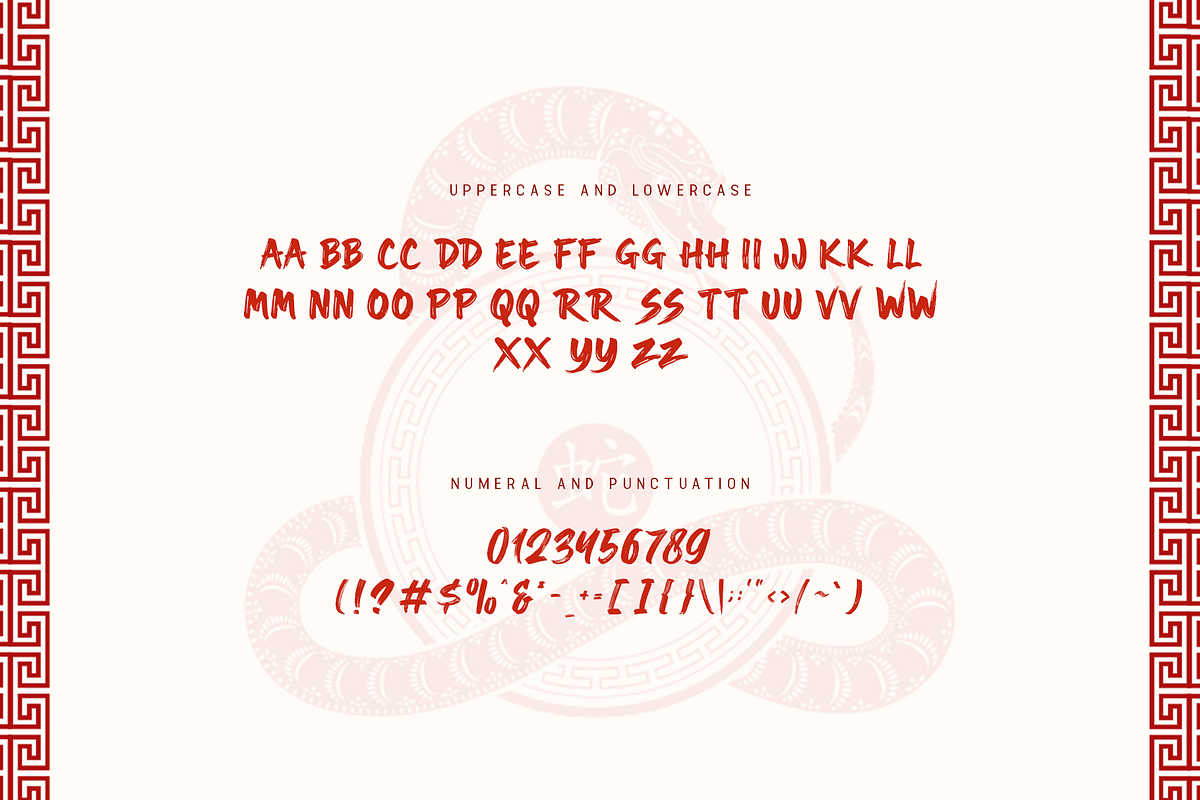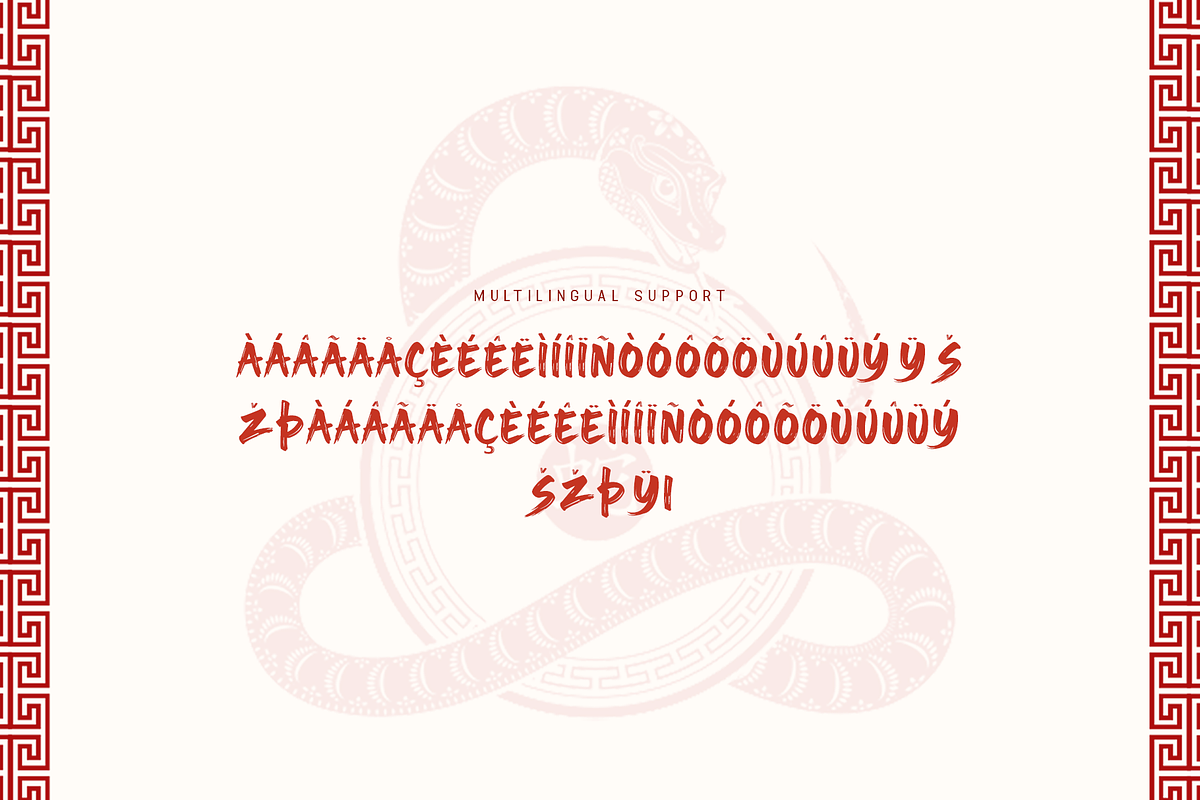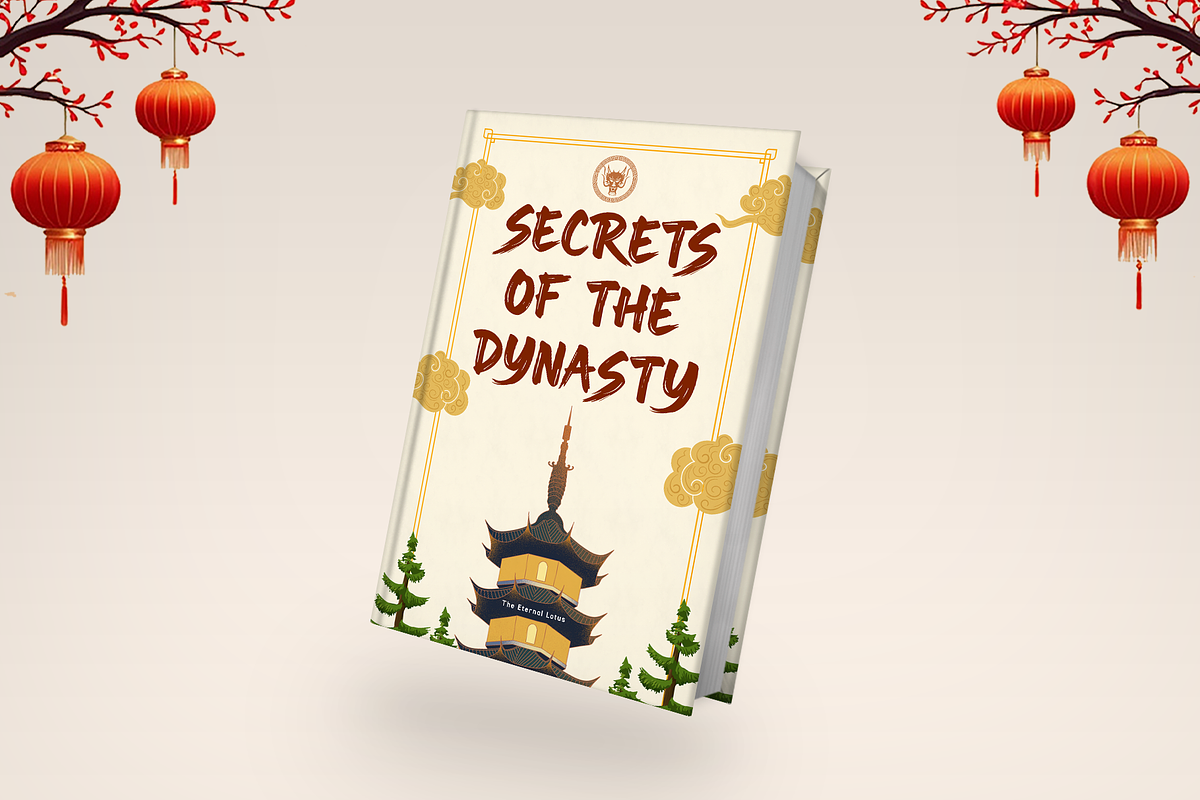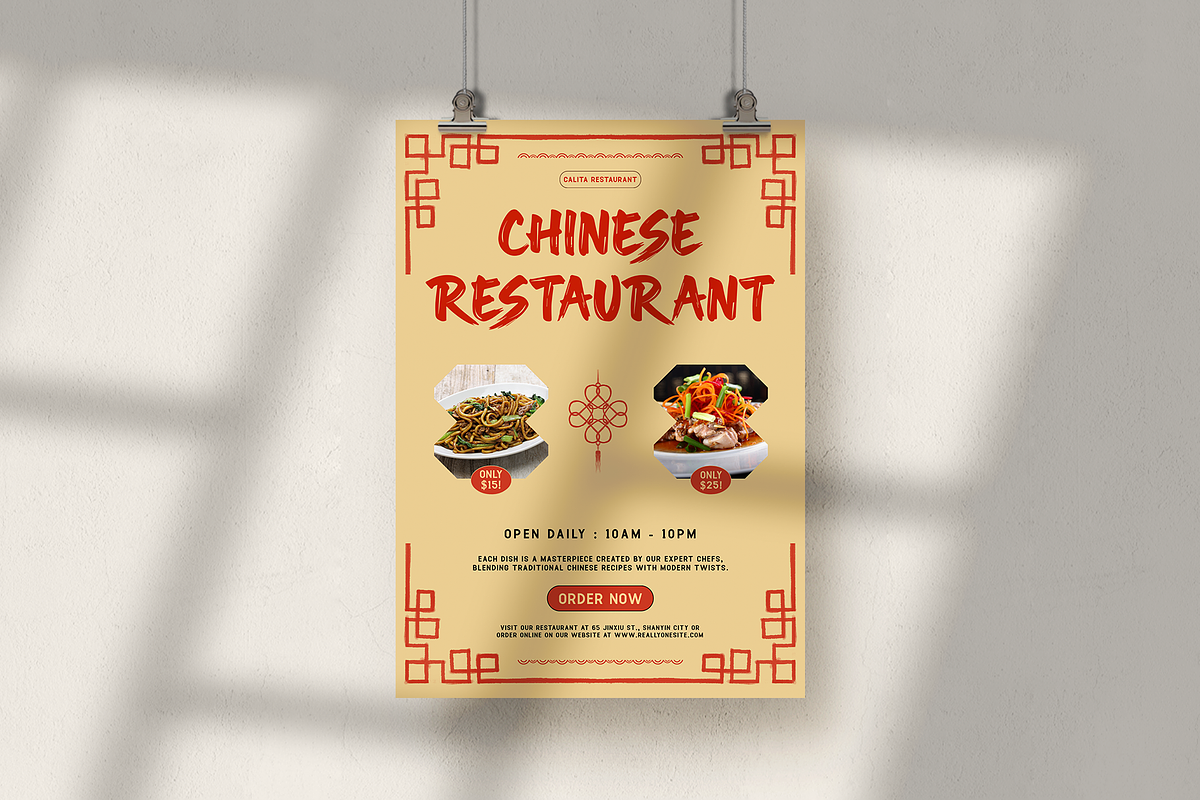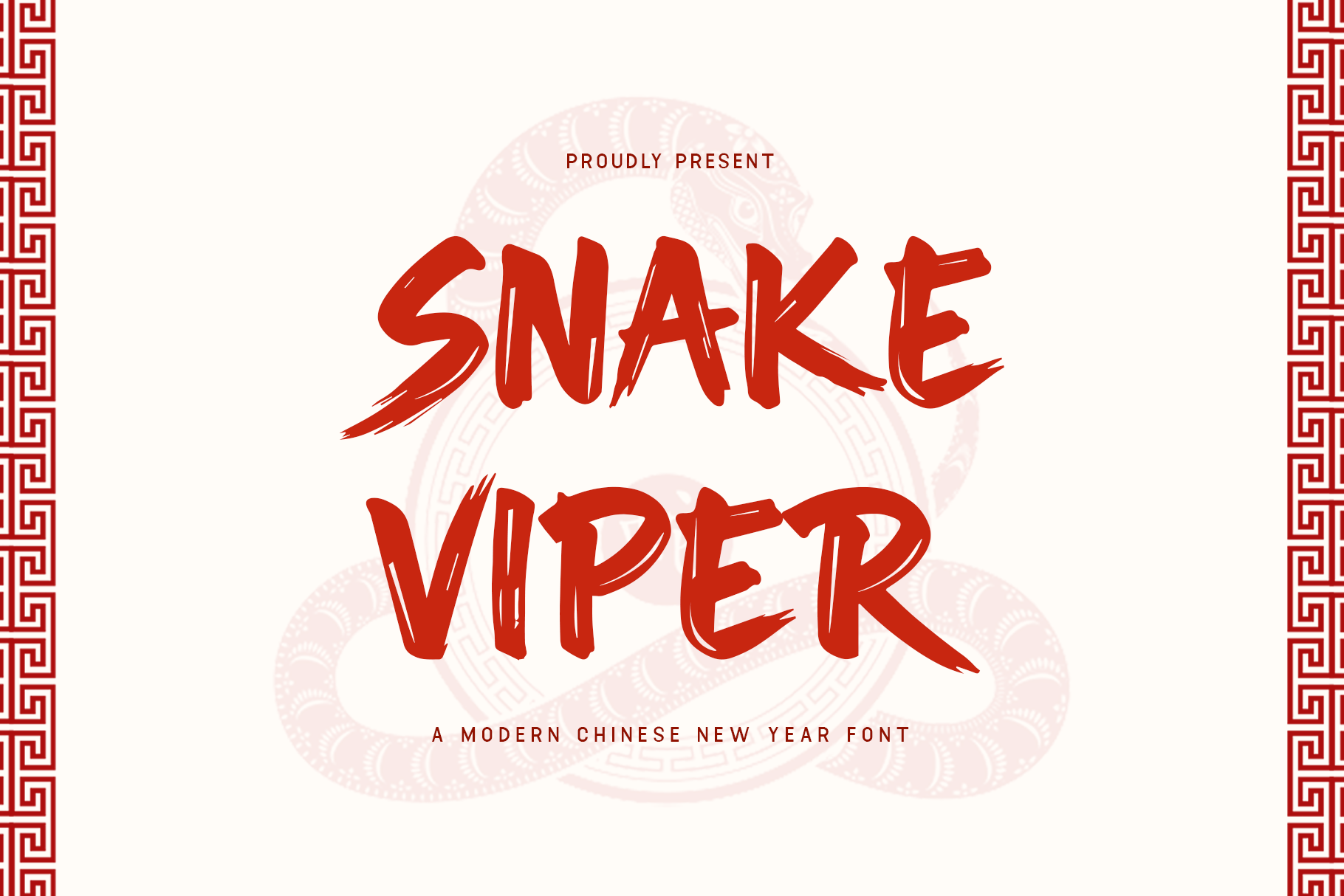
Snake Viper - A Modern Chinese Font
Snake Viper - A Modern Chinese New Year Font
Introducing Snake Viper, a modern font that embodies the strength and allure of the viper, symbolizing wisdom, power, and transformation in Chinese culture. Perfect for Chinese New Year celebrations, this font is ideal for creating bold, impactful designs such as invitations, event posters, branding, and more.
With its sleek lines and dynamic, serpentine curves, Snake Viper brings a sense of intensity and sophistication to your designs. This font is perfect for those looking to infuse their projects with the power and mystery of the snake, while maintaining a fresh, modern aesthetic.
Snake Viper is your essential font for adding bold energy and cultural depth to your Chinese New Year designs.